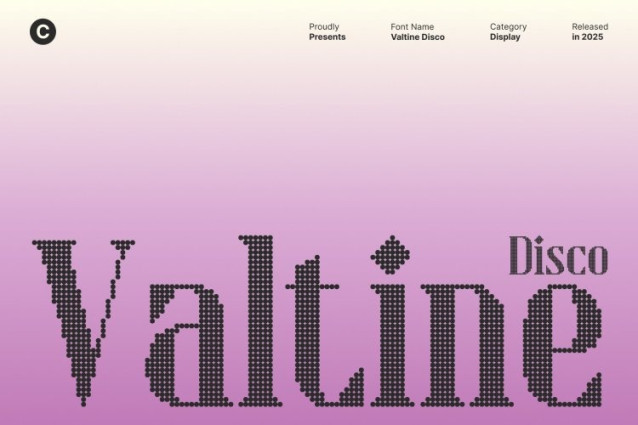
Valtine Disco Font
Valtine Disco Font This is a serif font designed to combine a condensed, contemporary structure with a sharp, aesthetic look. Its rigid, geometric forms convey strength, precision, and modernity, making it ideal for projects that demand a bold and professional typographic presence. The font balances technical sophistication with stylish design, ensuring high visual impact in every application.
Condensed Design for Maximum Presence
The condensed proportions of allow for efficient space usage without sacrificing readability. Each letter maintains clarity and structure, creating a clean, modern appearance that works perfectly for large headlines, posters, and display-oriented layouts. Its disciplined design enhances the font’s authoritative and contemporary feel.
Disco Effect for Glamour and Visual Energy
The integrated disco effect adds sparkle and subtle movement to every character, infusing the font with dynamic energy and visual flair. This playful yet elegant touch transforms rigid serif shapes into lively, eye-catching designs, making Valtine Disco stand out in both print and digital projects.
Perfect for Posters, Branding, Headlines, and Creative Projects
This font shines in posters, branding, headlines, editorial layouts, and creative projects. Its combination of modern condensed serifs, technical aesthetics, and sparkling disco details makes it perfect for designs that aim to appear bold, contemporary, and visually captivating. With this font, every project gains a striking and glamorous presence that commands attention.